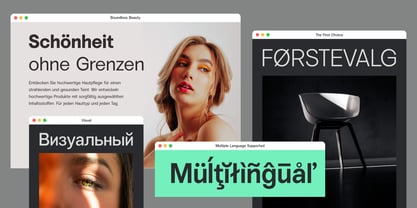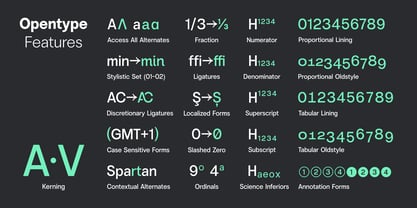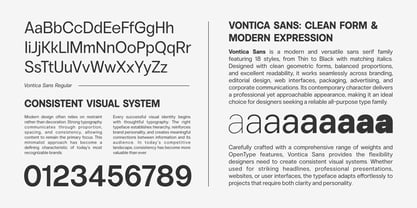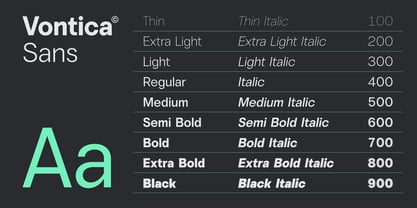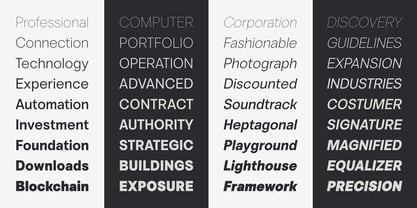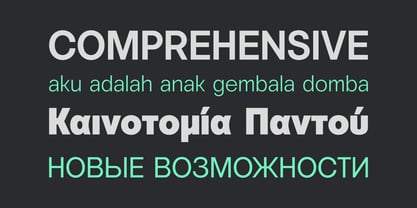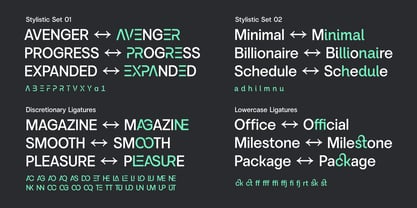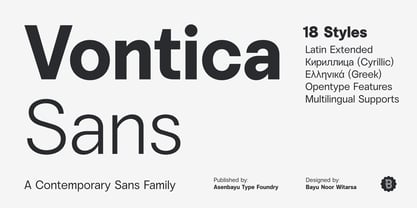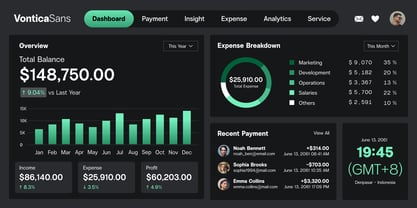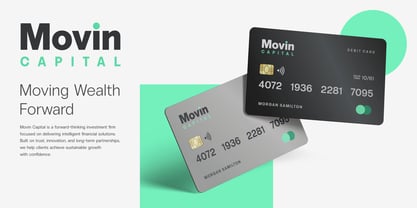
Vontica Sans
by Asenbayu
The Vontica Sans Font Family was designed by Bayu Noor Witarsa and published by Asenbayu. Vontica Sans contains 18 styles and family package options. More about this family
Vontica Sans is a contemporary sans serif typeface designed for clarity, versatility, and modern visual communication.
Featuring 18 styles, from Thin to Black with matching italics, this type family provides the flexibility needed for everything from bold headlines and branding to user interfaces, editorial layouts, logos, websites, packaging, advertising, and corporate communications. Its carefully crafted letterforms ensure excellent readability at both large display sizes and smaller text settings.
Features: 18 Styles (Thin to Black + Italics), Latin Extended Support, Cyrillic Support, Greek Support, Multiple Language Supported, Advanced OpenType features, Stylistic Alternates & Stylistic Set 01-02, Ligatures & Discretionary Ligatures, Figures (Lining, Oldstyle, Tabular & Proportional), Fractions, Numerators & Denominators, Superscript & Subscript, Case Sensitive Forms, Ordinals, Symbol & Punctuation, Refined Kerning & Balanced Spacing, Contemporary Sans Serif, Excellent Readability, Professional & Versatile Design.